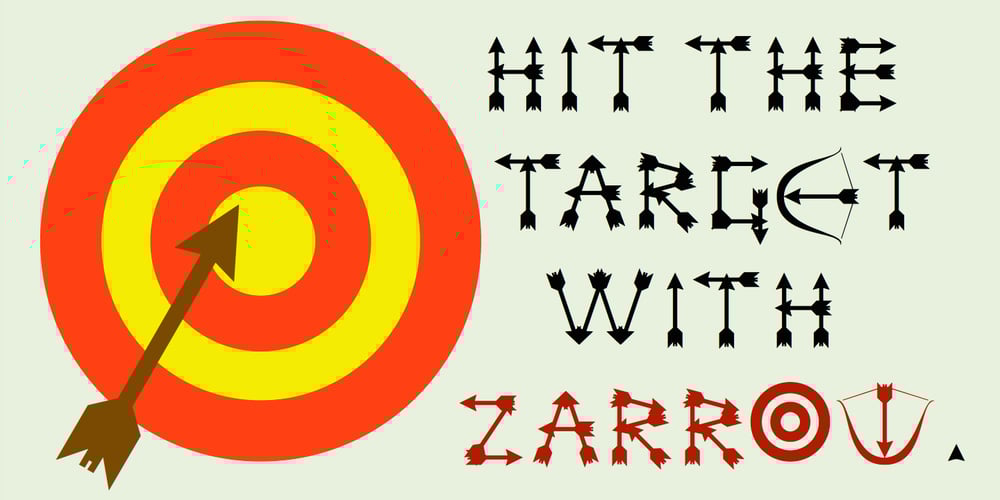
Zarrow
Zarrow Font Family was designed by Robert Schenk and published by Ingrimayne Type. Zarrow contains 1 styles and family package options. Zarrow is a novelty or letterbat font made up of arrows and other items from archery. It is caps only, but some of the characters on the lower-case keys alternatives to those on the upper-case keys.